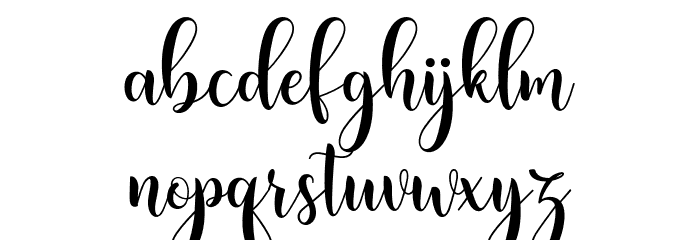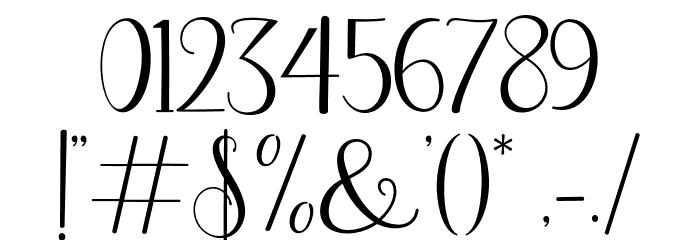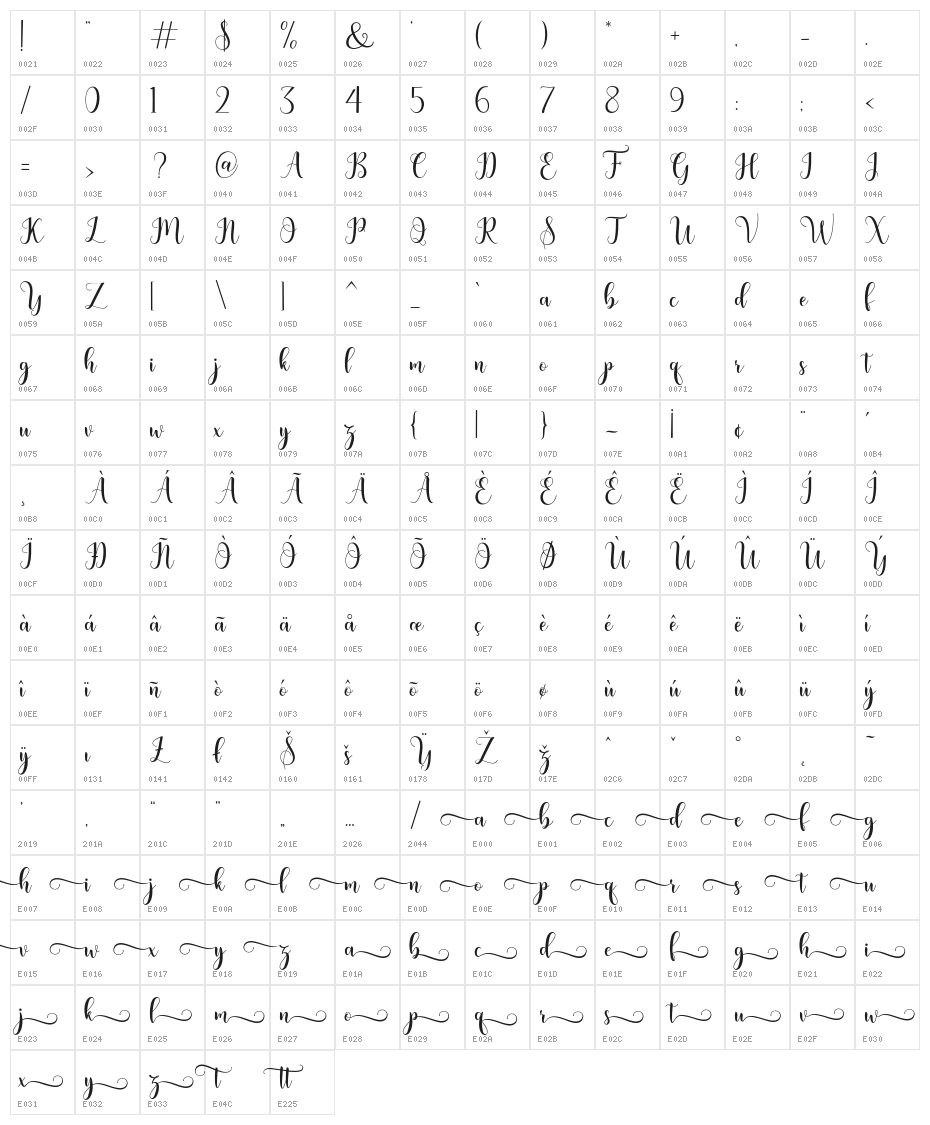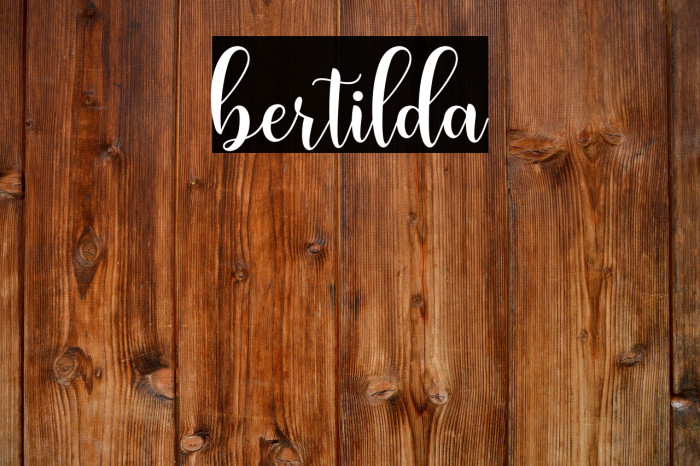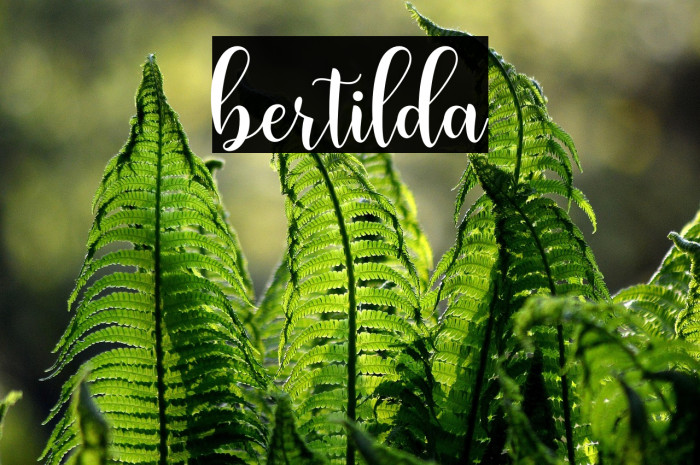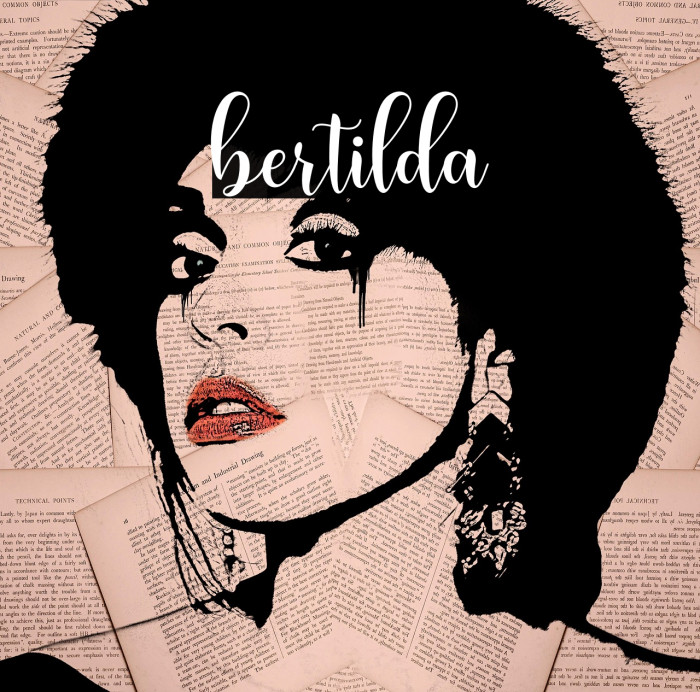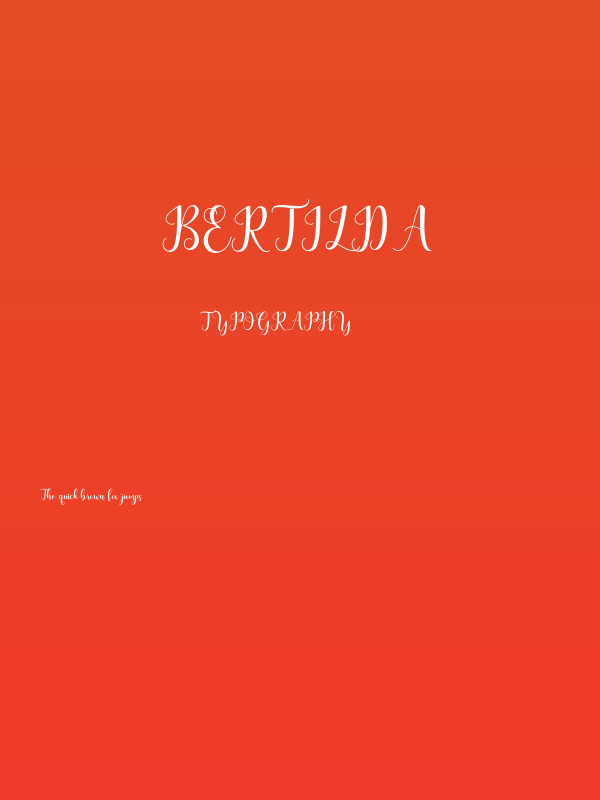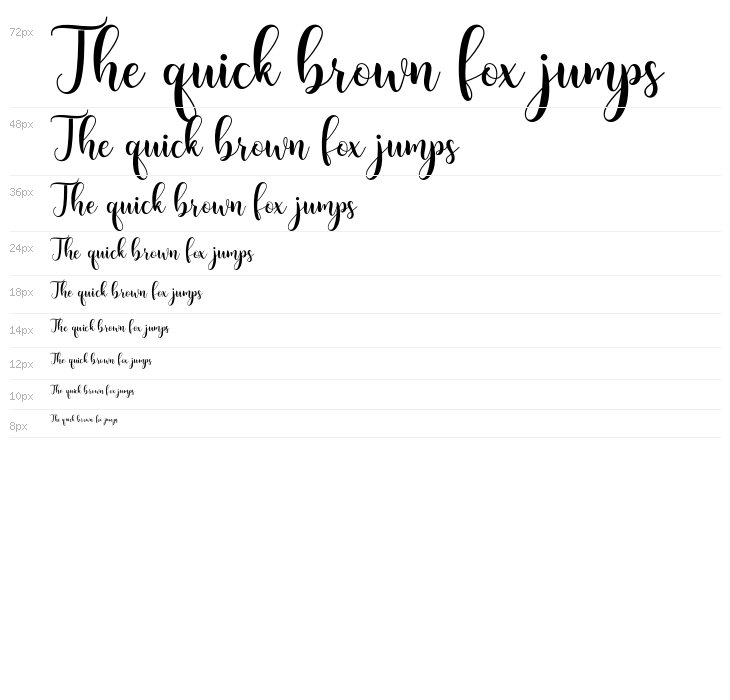
bertilda Font
This font is an elegant and flowing script that combines both uppercase and lowercase letters with a distinct flair. The uppercase letters feature intricate swirls and loops, giving them a sophisticated and decorative appearance. The lowercase letters are more bold and rounded, providing a nice contrast to the delicate uppercase. The numerals are stylish and maintain the overall elegant theme, with slight variations in thickness that add to their charm. Special characters are creatively designed, maintaining the font's cohesive style. This font is ideal for projects that require a touch of elegance and sophistication, such as wedding invitations, branding, or high-end product packaging.
An elegant script font with decorative uppercase and bold lowercase letters.
- Proposed Projects: Wedding invitations, luxury branding, product packaging, greeting cards.